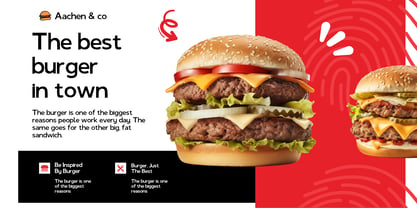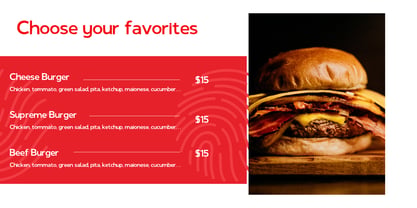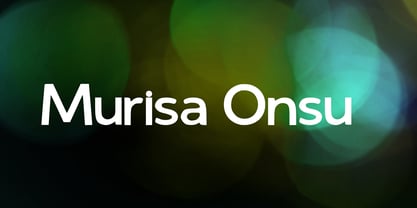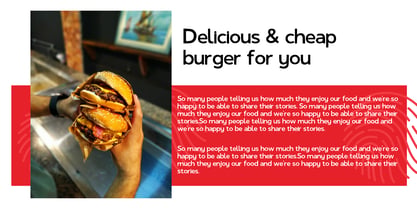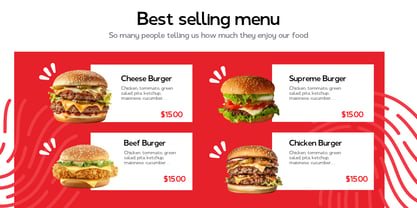
Murisa Onsu
by Murisa Studio
The Murisa Onsu Font Family was designed by Lili Sadili and published by Murisa Studio. Murisa Onsu contains 2 styles and family package options. More about this family
✨ Murisa Onsu: The New Standard of Modern Elegance ✨ Elevate your visual storytelling with Murisa Onsu, a masterpiece of contemporary typography where mathematical precision meets soulful artistry. Designed for those who demand more than just a font, Murisa Onsu is a statement of prestige, clarity, and global vision. 🏛️ The Anatomy of Perfection Every curve and stroke in Murisa Onsu has been meticulously calibrated to achieve a perfect optical balance. Geometric Soul: Inspired by the timeless purity of Euclidean shapes. Human Touch: Subtle, organic transitions that ensure readability even at the highest resolutions. Bold Authority: A commanding presence that captures attention without ever feeling "loud." 🌍 A Gateway to Eastern Europe True luxury knows no borders. Murisa Onsu is engineered with full Extended Latin support, specifically optimized for Eastern European languages. Whether your project speaks Polish, Czech, Hungarian, or Romanian, Murisa Onsu maintains its flawless aesthetic integrity across a diverse linguistic landscape. "In a world of generic type, Murisa Onsu is the bespoke suit of fonts—perfectly tailored for the global stage." 💎 Why Murisa Onsu is an Indispensable Investment: 🏆 High-End Branding: The go-to choice for luxury fashion, architectural firms, and tech pioneers. 📐 Seamless Versatility: From ultra-minimalist headlines to sophisticated digital interfaces. 🌐 Cross-Continental Reach: Specialized glyphs for Eastern European scripts ensure your message is never "lost in translation." 🖋️ Rare Aesthetic: A unique rhythm between lowercase fluidity and uppercase dominance that you won't find anywhere else. Transform your creative legacy. Own the typeface that defines the next era of global design